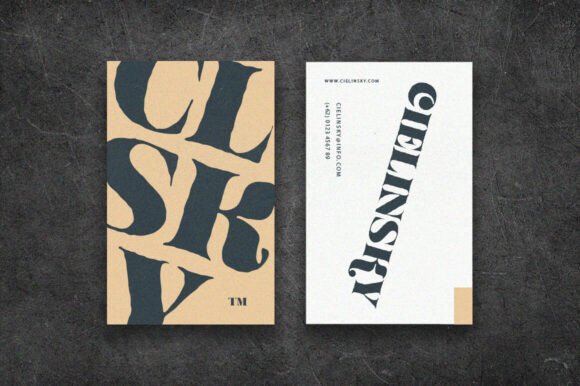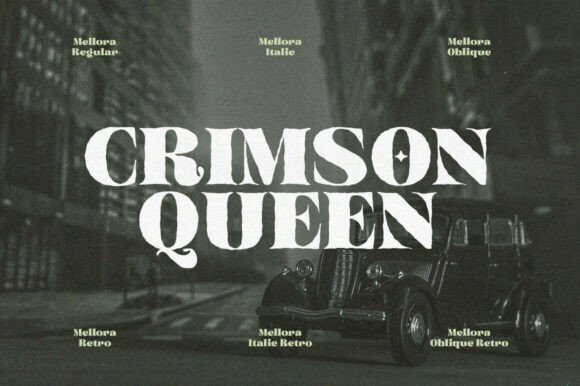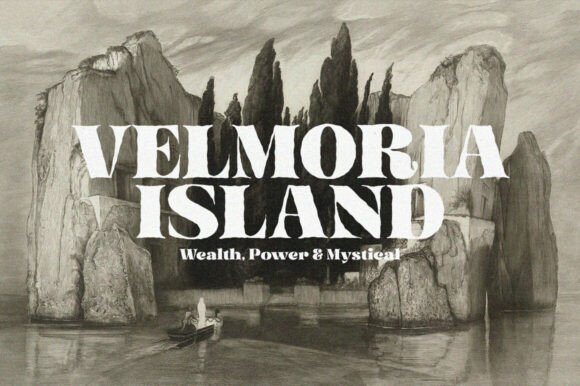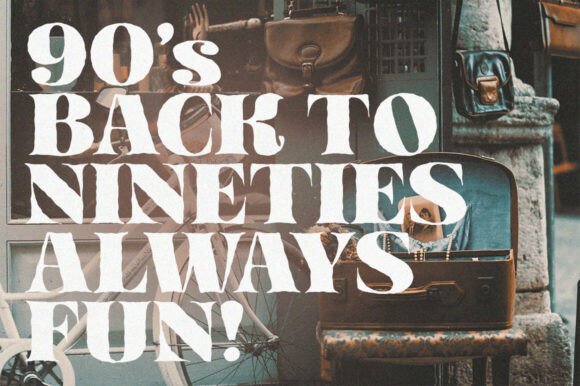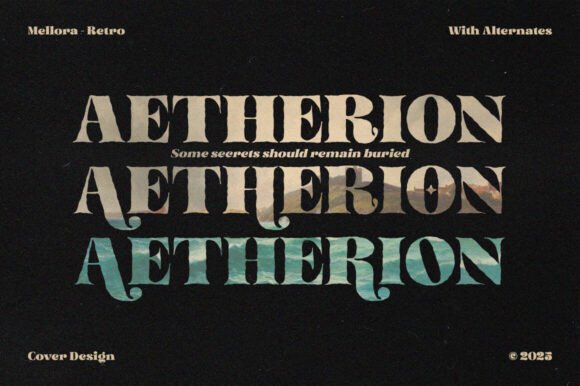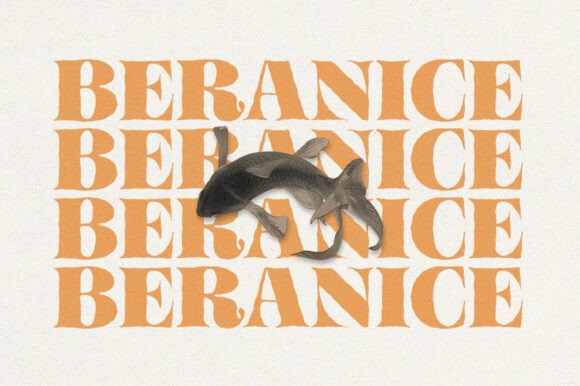
Introduction to Mellora Font
Mellora is a serif display font crafted with an air of tranquility and sophistication.
Designed to evoke elegance, it comes in regular, oblique and italic with retro styles that offer versatility across a wide range of design projects With its smooth curves and graceful lines, Mellora is equally suited for striking headlines and refined body text.
Key Features of Mellora Font